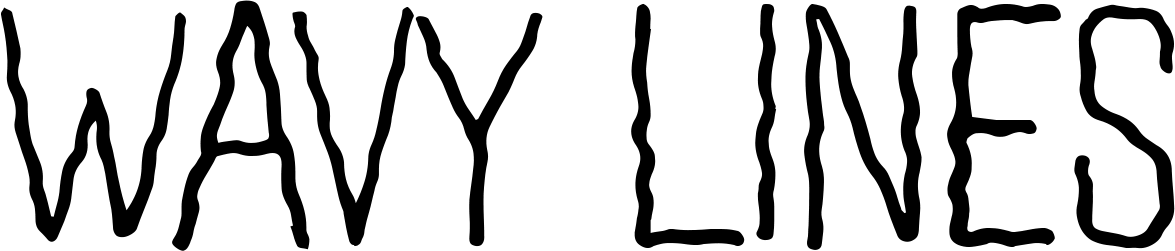
Wavy Lines Font
This unique wavy font offers slim, distorted sans serif style characters that you can use to create the typography you have been visualizing. The outcome of selecting this Wavy Lines font will be strange, jittery, and unusual typography but also has a comical handwritten design.
It contains mixed case A to Z letters and punctuations, but it doesn’t include a set of numbers. A few common places to use Wavy Lines are comics, branding, packaging, and more.